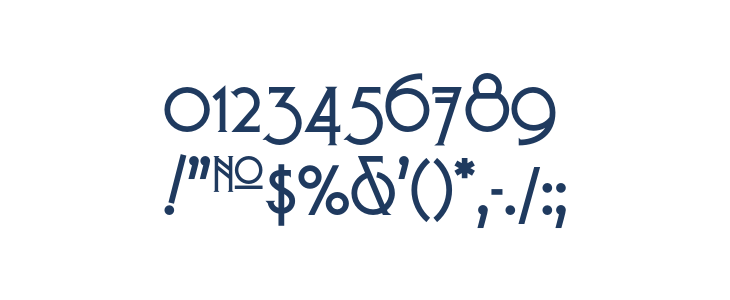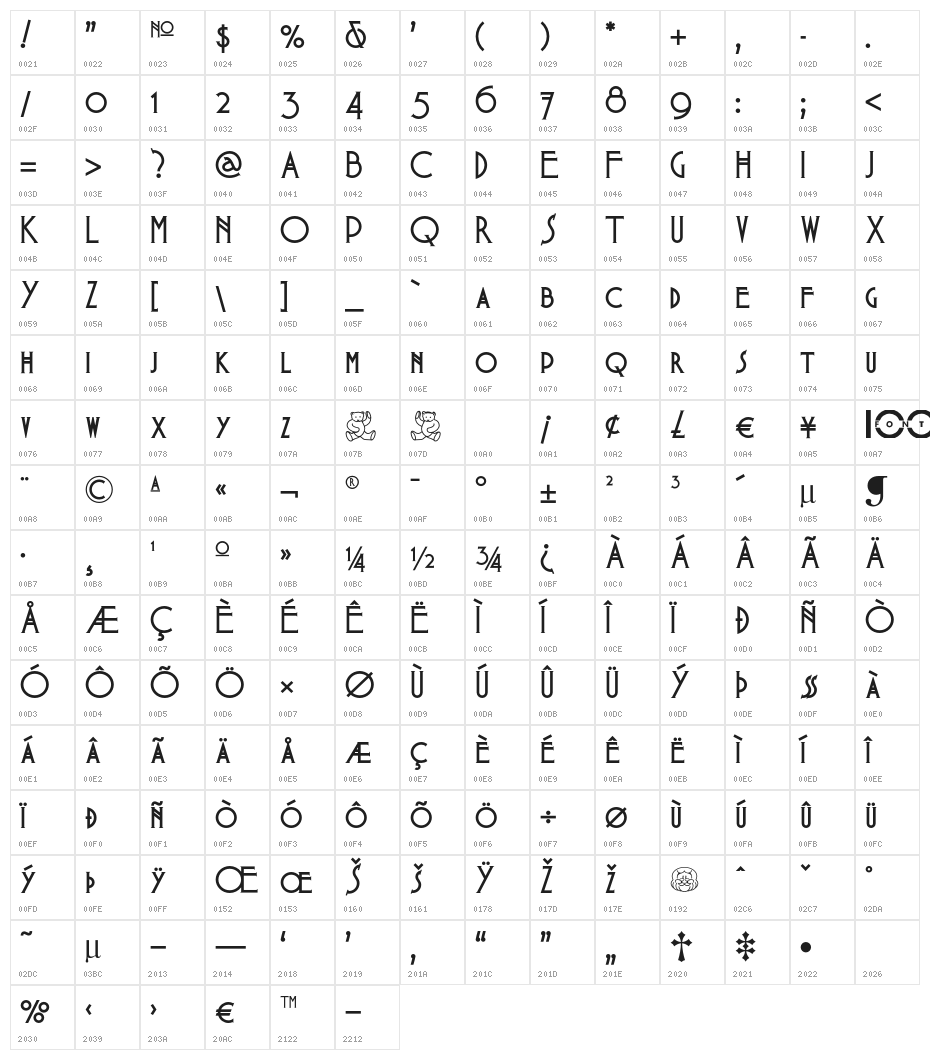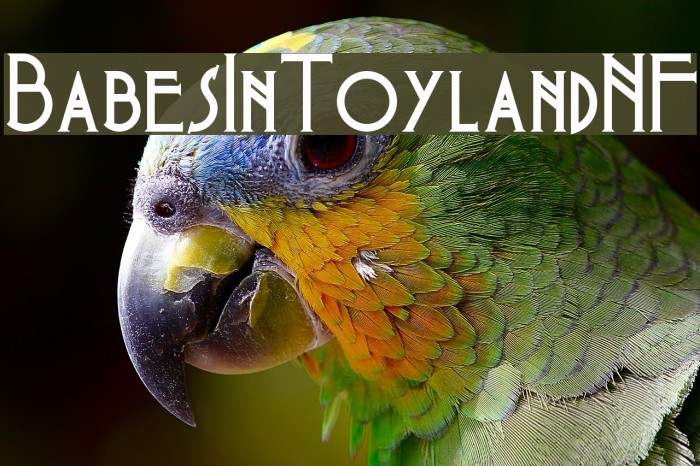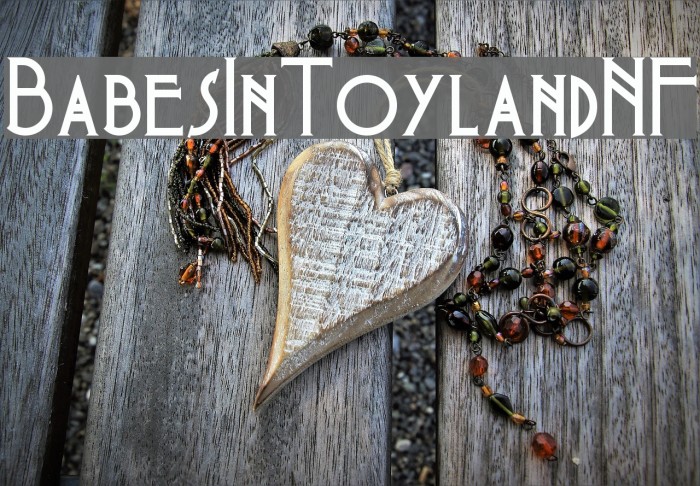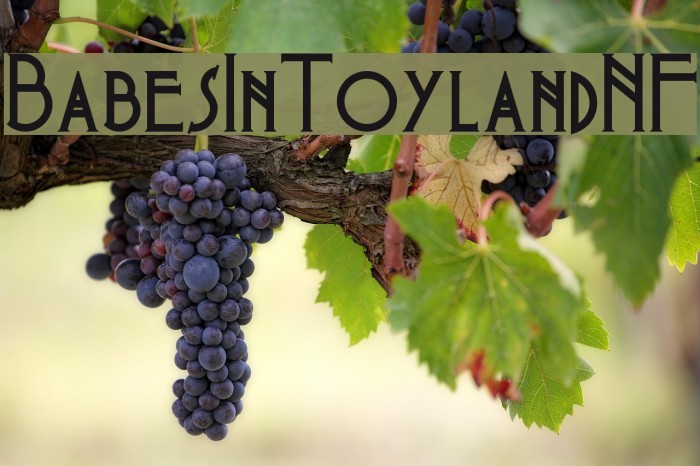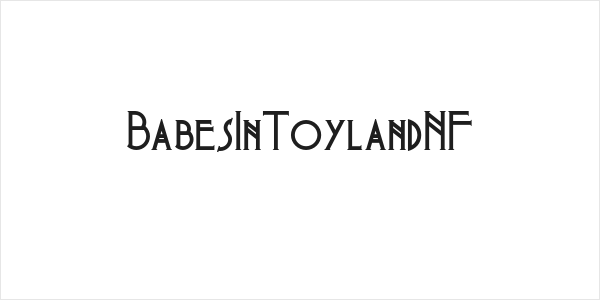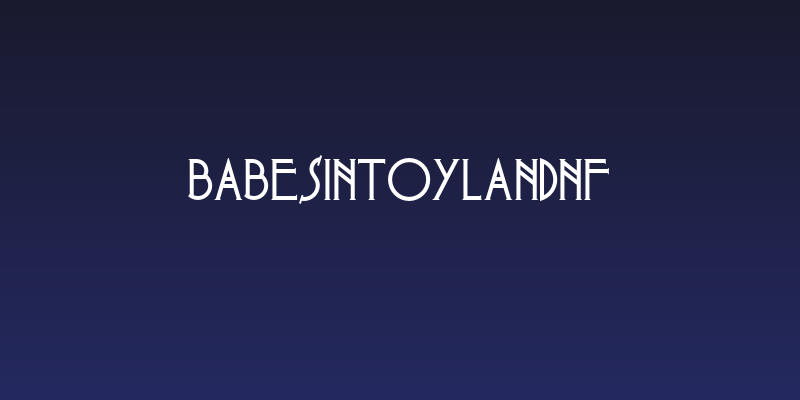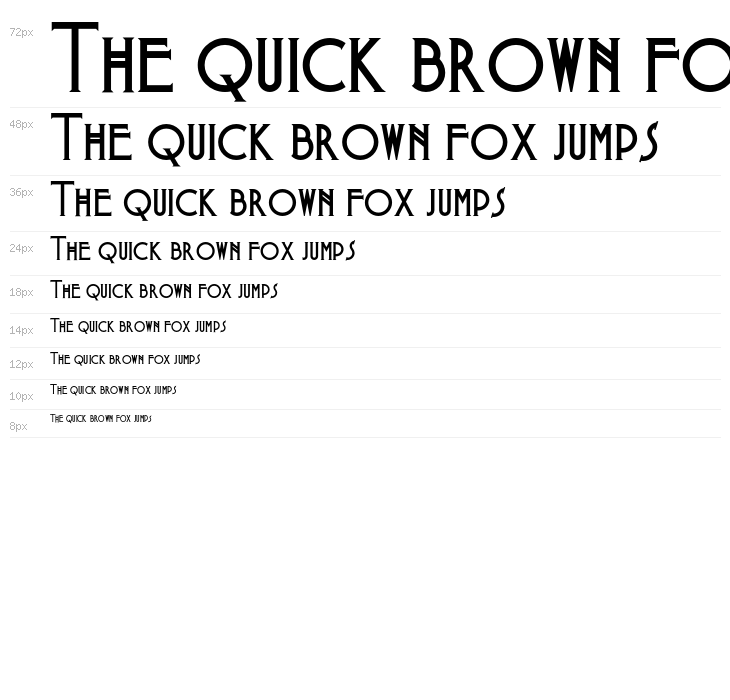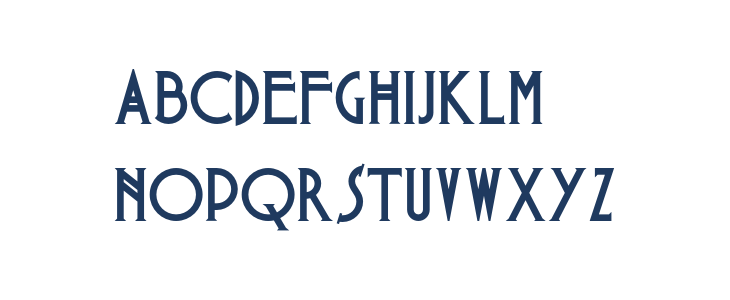
BabesInToylandNF Font
BabesInToylandNF Description
This font features a playful and whimsical design, characterized by its unique and slightly irregular letterforms. The uppercase letters have a distinct flair, with some characters like 'N' and 'Q' incorporating decorative elements that add to the font's charm. The lowercase letters maintain a consistent style, complementing the uppercase with their quirky shapes. The numbers are bold and easily readable, while the special characters retain the font's overall playful aesthetic. This font's design is reminiscent of a vintage or theatrical style, making it suitable for creative and artistic projects.
Overall StyleVintage, Decorative
Use CaseHeadlines, Logos, Posters
Proposed ProjectsIdeal for children's book covers, theatrical posters, playful branding, and creative invitations.